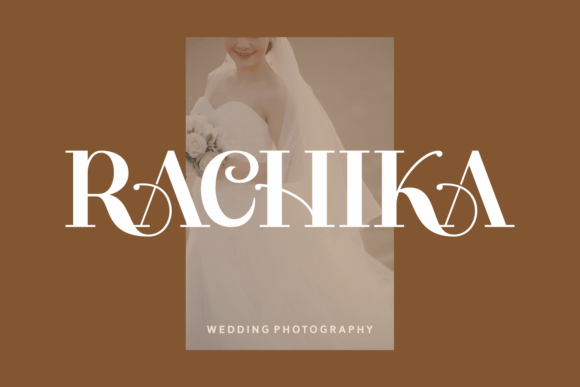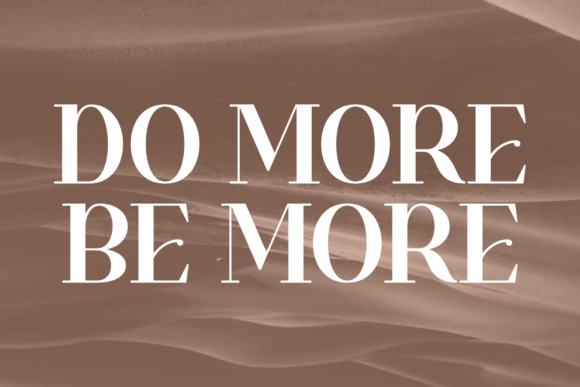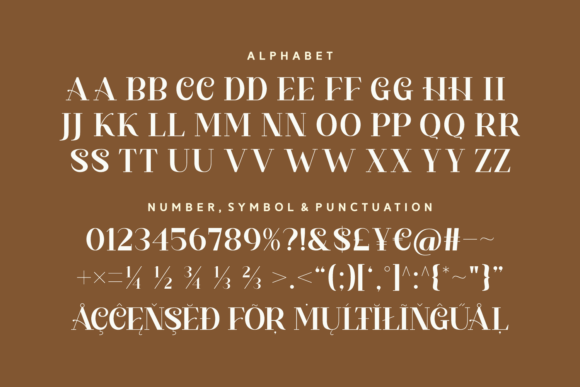
Introducing Ciska Font: Elevate Your Visual Storytelling with Style
In the world of typography, a font can make or break the visual identity of a brand or project. For designers and crafters looking to make a statement, Ciska Font is a game-changer. This stylish and bold modern serif typeface is designed to turn heads and elevate your visual storytelling to new heights.
The Perfect Blend of Elegance and Creativity
Ciska Font is a masterful blend of elegance and creativity, making it the perfect match for fashion brands, editorial projects, beauty packaging, social media content, and luxury marketing materials. Its artistic flourishes and confident structure help your work stand out while maintaining a clean and polished look. With Ciska, you can add a touch of sophistication and glamour to your designs, setting you apart from the competition.
Key Features of Ciska Font
- Swirly Alternates: Ciska Font features swirly alternates that add a touch of whimsy and creativity to your designs. These unique alternates allow you to customize your text and add visual interest to your projects.
- High-Fashion Aesthetic: Ciska’s high-fashion aesthetic makes it perfect for fashion brands and editorial projects. Its bold and stylish design is sure to make a statement and leave a lasting impression.
- Modern Serif Typeface: Ciska is a modern serif typeface that combines traditional typography with modern flair. Its clean lines and polished look make it perfect for luxury marketing materials and high-end branding.
Use Cases for Ciska Font
Ciska Font is versatile and can be used in a variety of contexts, including:
- Fashion Brands: Ciska’s high-fashion aesthetic and bold design make it perfect for fashion brands looking to make a statement.
- Editorial Projects: Ciska’s elegant and refined design makes it perfect for editorial projects, such as magazines and newspapers.
- Beauty Packaging: Ciska’s luxurious and high-end design makes it perfect for beauty packaging and branding.
- Social Media Content: Ciska’s bold and eye-catching design makes it perfect for social media content, such as Instagram and Facebook posts.
- Luxury Marketing Materials: Ciska’s clean and polished design makes it perfect for luxury marketing materials, such as brochures and flyers.
Why Choose Ciska Font?
With so many fonts to choose from, why choose Ciska Font? Here are just a few reasons:
- Unique and Expressive: Ciska Font is a unique and expressive typeface that will help your work stand out from the competition.
- Professional and Polished: Ciska Font has a professional and polished look that is perfect for high-end branding and luxury marketing materials.
- Versatile: Ciska Font is versatile and can be used in a variety of contexts, from fashion brands to editorial projects.
In conclusion, Ciska Font is a stylish and bold modern serif typeface that is perfect for designers and crafters looking to elevate their visual storytelling. With its swirly alternates, high-fashion aesthetic, and confident structure, Ciska is sure to make a statement and leave a lasting impression. Whether you’re working on a fashion brand, editorial project, or luxury marketing materials, Ciska Font is the perfect choice.